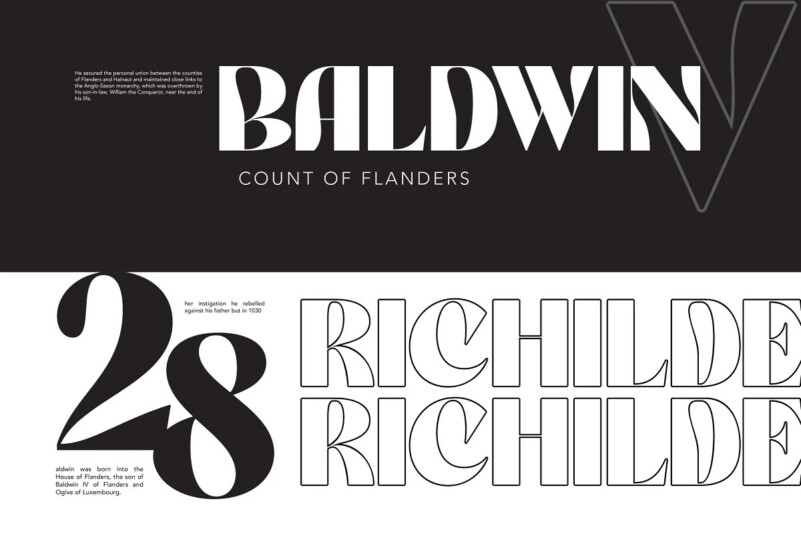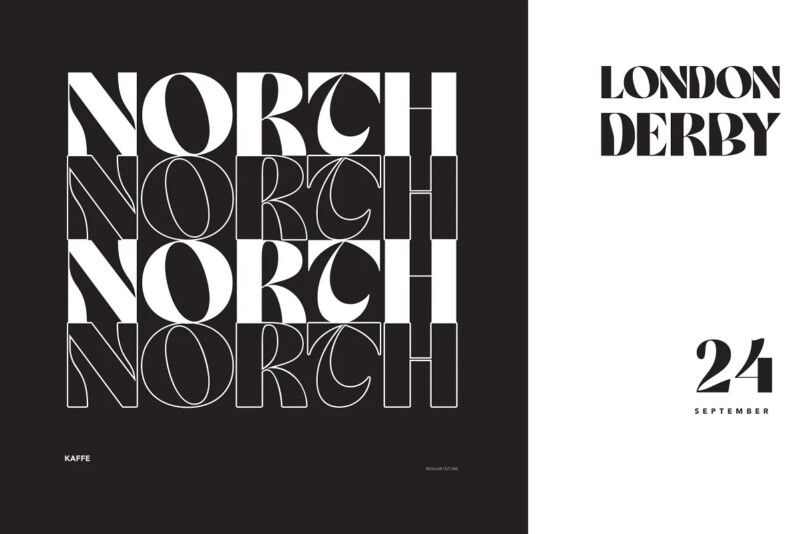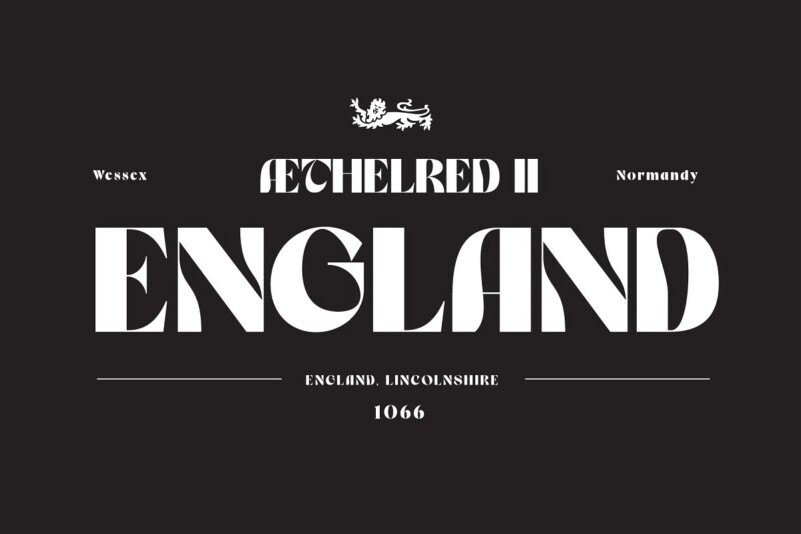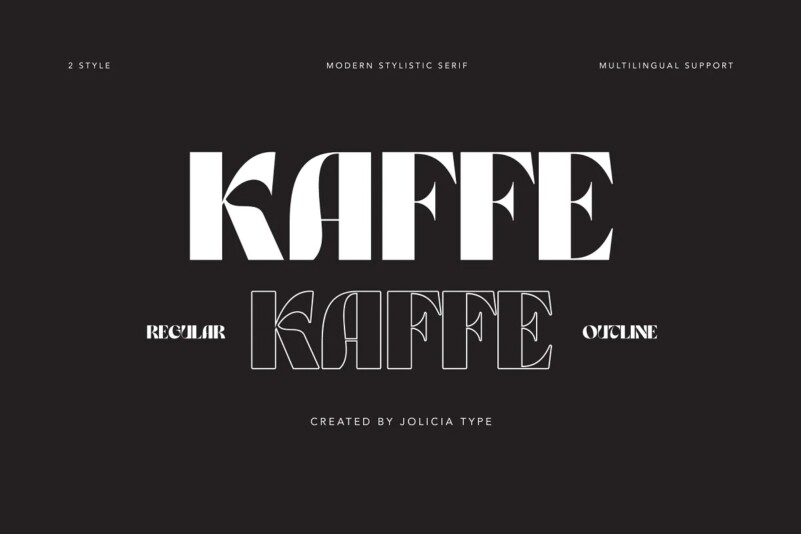
Kaffe Font
Kaffe Font is a psychedelic inspired typeface crafted & designed by Jolicia Type. It’s retro, bold, and playful. Perfect if you need a dose of fun in your project. Kaffe font best used for logotype, headline, header, signage, apparel design, invitation, poster, flyers, greeting cards, packaging, book cover, printed quotes, cover album, movie, & etc